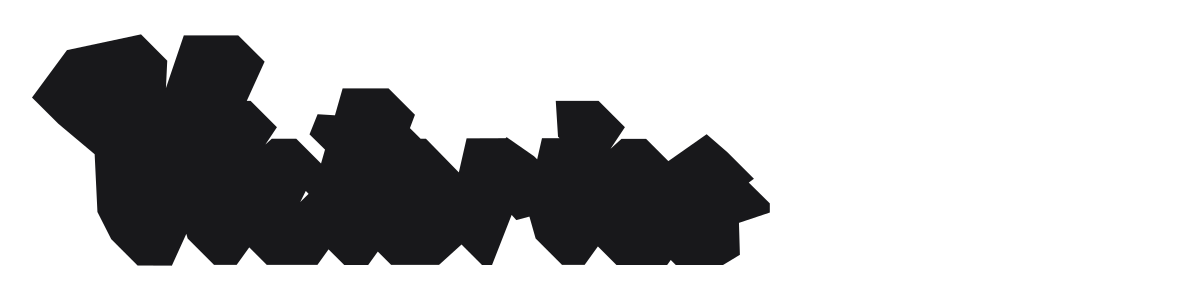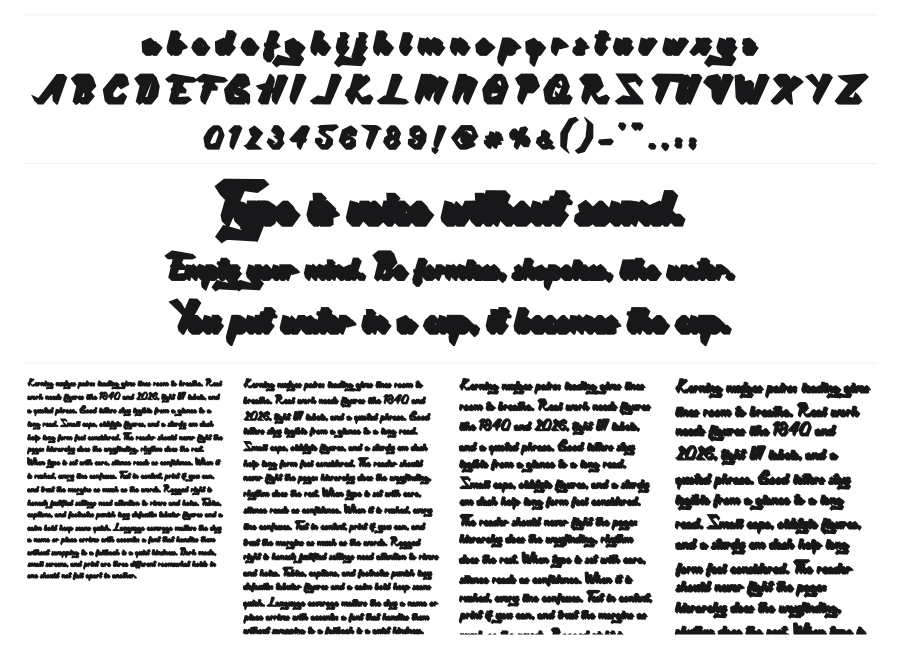
Victories
Victories is a heavy graffiti script with sharp, angular strokes and a bold forward lean that radiates street energy. Each character is constructed with geometric facets and clean chisel-cut terminals, giving the lettering a stylized wildstyle quality. It works best large, where the dense connected forms read as a unified graphic statement.